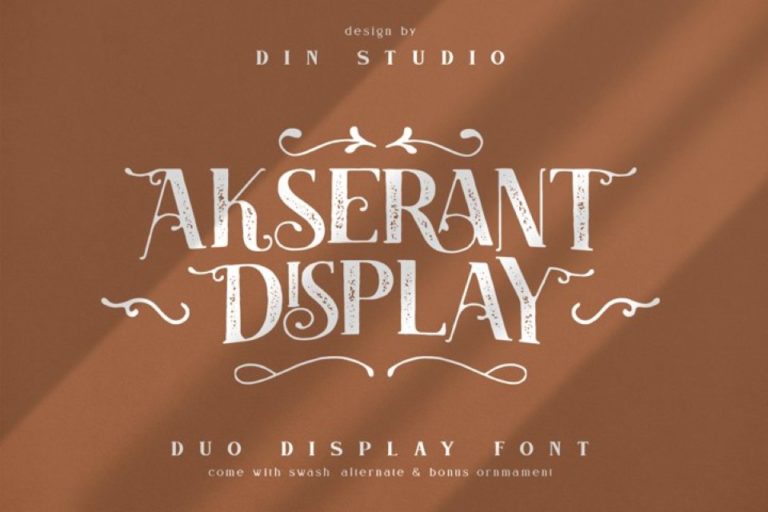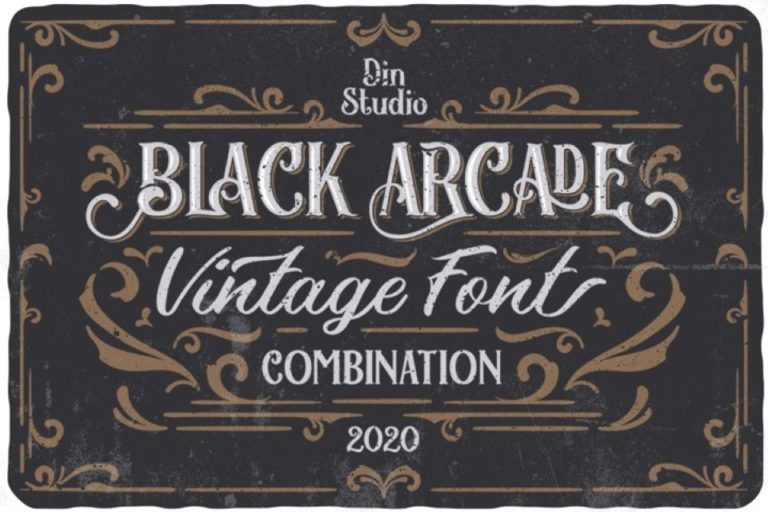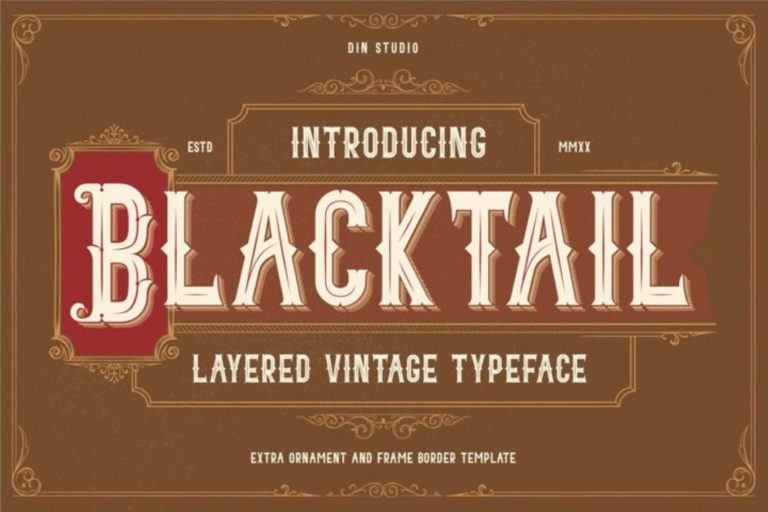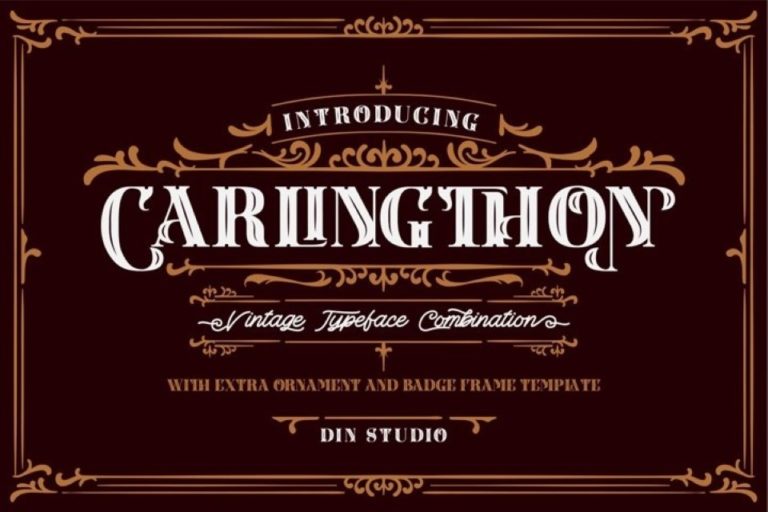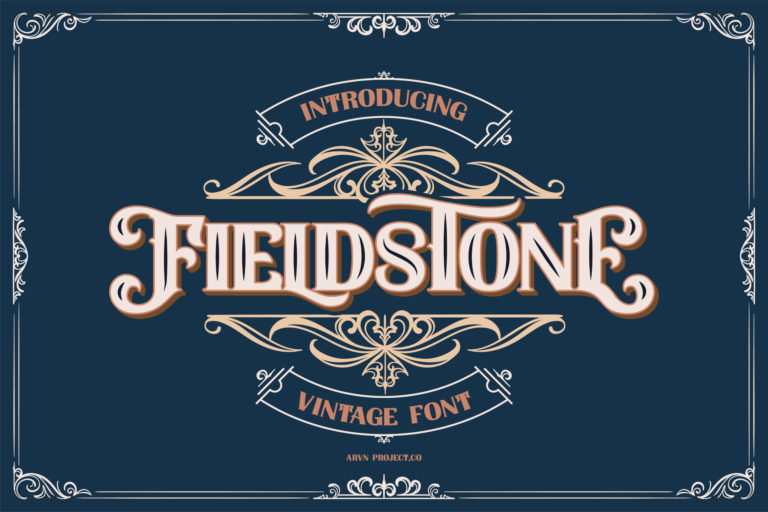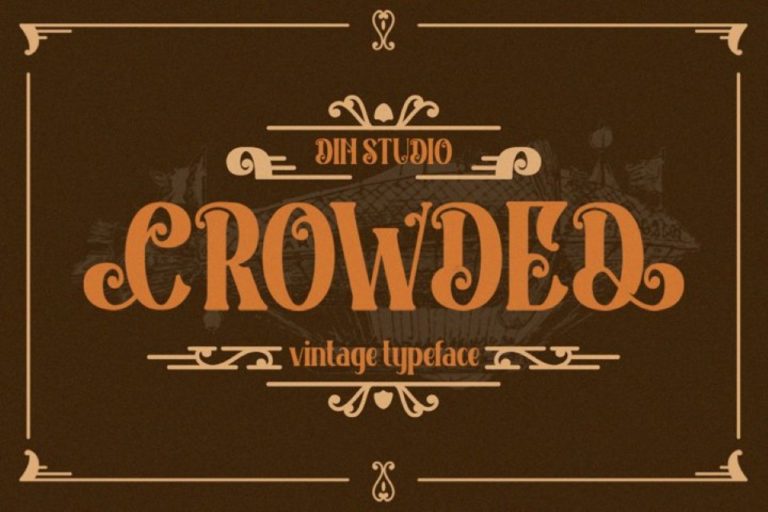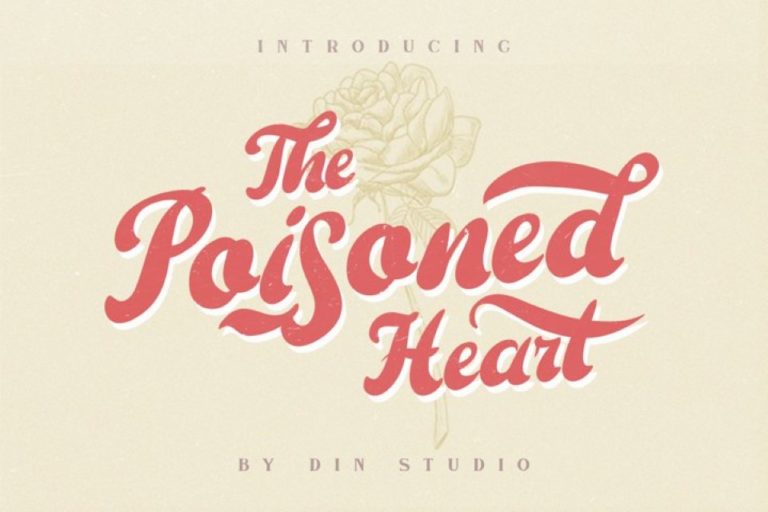
Lifetime Bundle Vintage Font
Hello, everyone! Introducing Lifetime Bundle Vintage Font!
Introducing a font bundle that consists of 10 vintage family fonts. The vintage touch contained in our design fonts will make your design look outstanding and original. With several layer fonts that are easy to use and bonus vectors, it will be easier for you to create cool and extraordinary vintage designs. It is suitable for many design projects, such as poster, logo, book cover, branding, heading, printed product, merchandise, quotes, social media campaign, and so much more!
Lifetime Bundle Vintage Font includes Multilingual Support. See the previews above to get some inspiration on how you can use them.
Fonts include are :